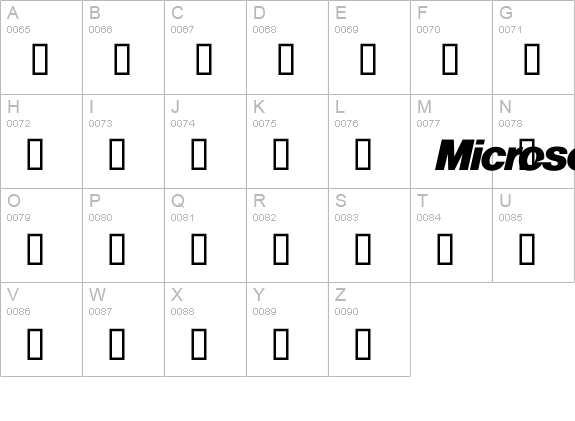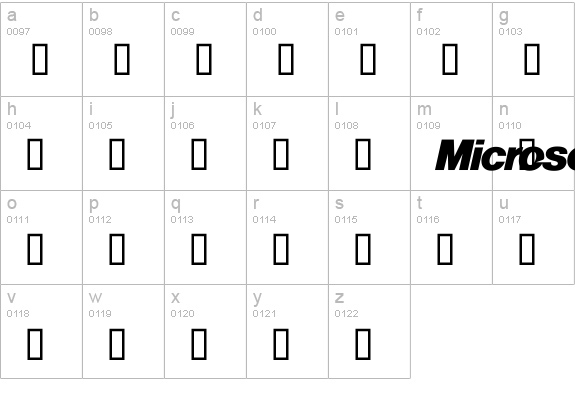
Microsoft Logo 95 font is a classic and timeless typeface that exudes a sense of professionalism and modernity. Its sleek and bold design makes it perfect for creating eye-catching logos and branding materials. The font features clean lines and sharp edges, giving it a distinct and memorable look. What sets Microsoft Logo 95 font apart is that it is available for free download at FontsMarket.com. This means that you can easily access and use this versatile font for all your design projects without any cost. Whether you're a graphic designer, marketer, or business owner, Microsoft Logo 95 font is a valuable addition to your font library. With its wide range of weights and styles, Microsoft Logo 95 font offers flexibility and versatility for all your design needs. From sleek and modern logos to bold and impactful headlines, this font can elevate your designs and help you stand out from the crowd. Download Microsoft Logo 95 font for free today and unleash your creativity with this must-have typeface.